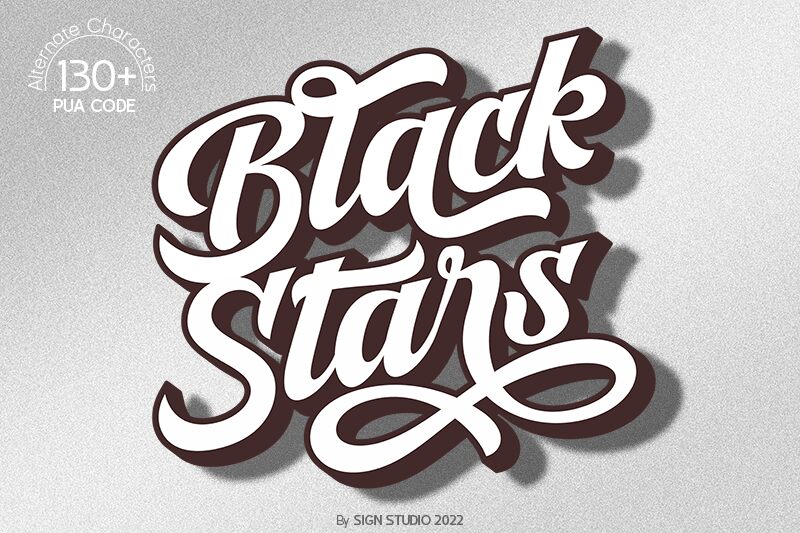
Black Stars Shadow is an extraordinary font from the renowned Sign Studio. With its striking old-school script style and extra-bold weight, this font is perfect for adding a touch of vintage appeal to your projects. Whether you're designing retro-inspired logos, creating eye-catching posters, or crafting authentic-looking invitations, Black Stars Shadow will elevate your work to new heights. Its elegant curves and dramatic shadows make it ideal for everything from fashion branding to album covers. Embrace the charm of this unique typeface and give your designs a timeless allure that will leave a lasting impression.
Black Stars Shadow
Black Stars Font by Sign Studio
Sign Studio